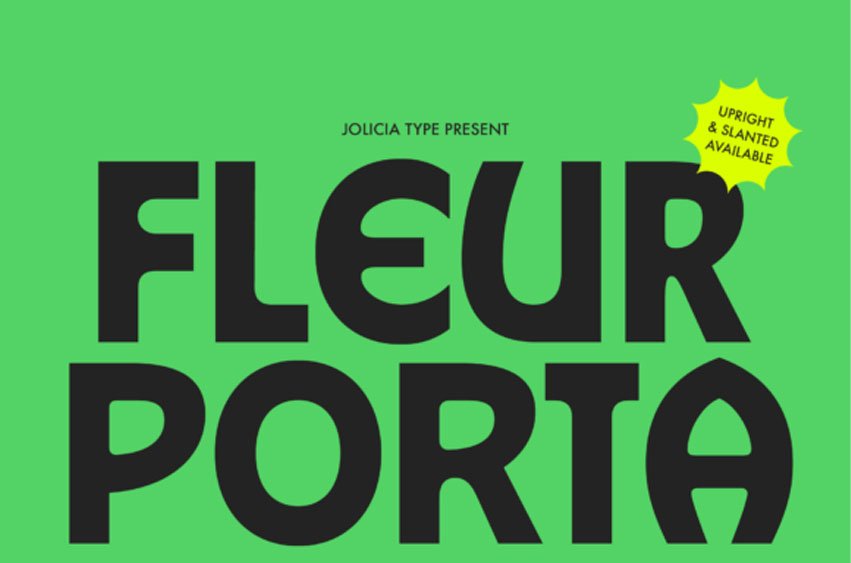
Fleur Porta Font is a distinctive display sans serif typeface that blends modern clarity with a subtle touch of Art Deco elegance. Designed to stand out, this font features clean geometric forms enriched with refined decorative details, creating a perfect balance between simplicity and sophistication. Its bold presence makes it highly effective for headlines, titles, posters, branding, and editorial designs that require a strong visual impact.
Whether used in fashion branding, creative layouts, or eye-catching typography, this font delivers a confident and elegant statement in every composition.